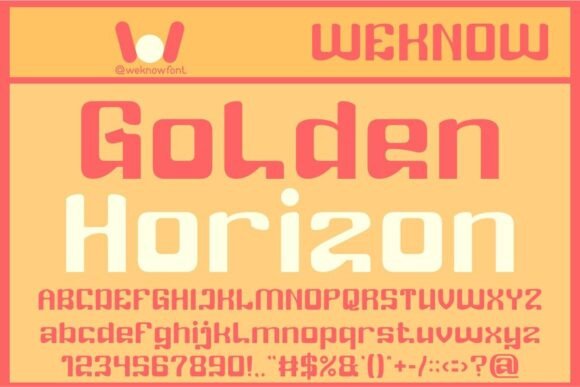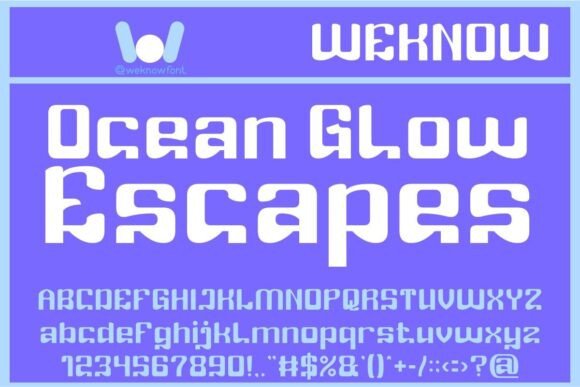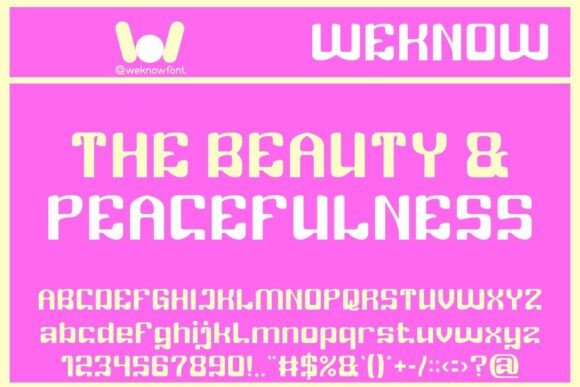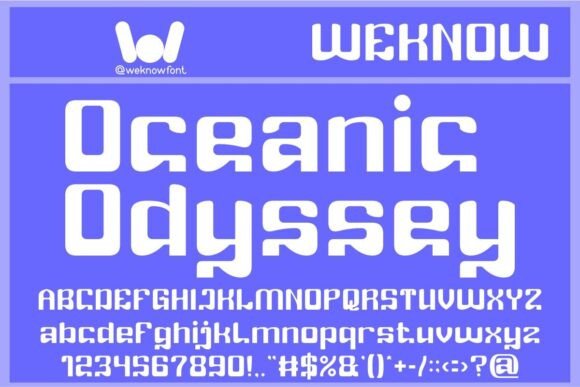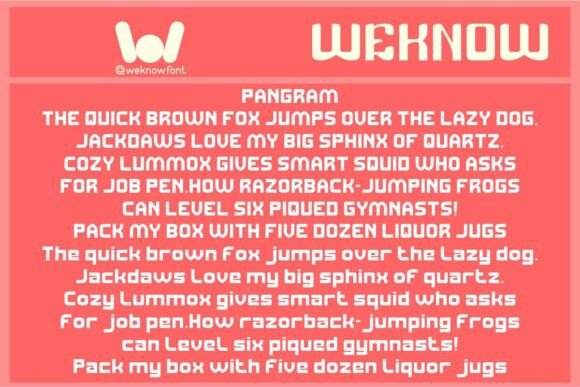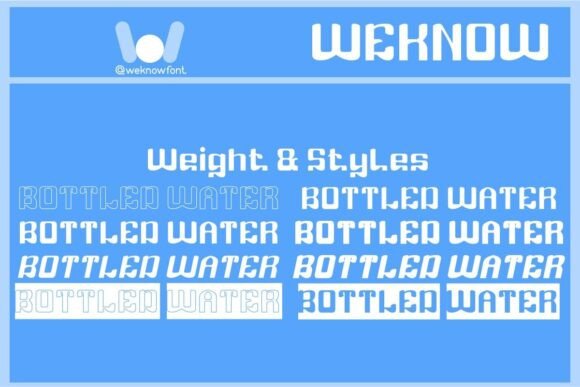
Unlock the Whimsy of Your Designs with Bottled Water Font
Have you ever stared at a blank page, waiting for the perfect font to inspire your next creative project? That’s exactly what happened to me when I stumbled upon the enchanting ‘Bottled Water Font’. Its wavy lines and quirky charm sparked a wave of ideas, and I knew I had to dive deeper.
Imagining a font that captures the essence of fun and playfulness, ‘Bottled Water Font’ is a visually stunning display font that seamlessly blends whimsy, surrealism, and eclecticism. This font is a designer’s dream come true, offering a unique twist to logos, corporate identities, and brand signatures. Whether you’re a seasoned pro or a design newbie, Bottled Water Font is an invaluable asset that will breathe life into your projects.
Bottled Water Font Key Features
- Unique Characteristics: The Bottled Water Font features a modern, minimalist design with clean lines and a subtle texture, evoking the feeling of a refreshing glass of water.
- Font Style: The Bottled Water Font is available in 3 font styles: Regular, Bold, and Italic, providing versatility for various design applications.
Bottled Water Font Review
I was excited to dive into the world of Bottled Water Font, a sans-serif typeface designed specifically for showcasing water-related products. Here’s my honest take on this font.
- Legibility: Bottled Water Font is indeed highly legible, even at smaller font sizes. The clear, rounded lines make it perfect for reading long text.
- Water-inspired Design: The font’s design, with its wavy lines and subtle texture, effectively conveys the idea of water. It’s a clever touch that adds to the font’s appeal.
- Wide Character Set: The font includes a comprehensive set of characters, including symbols, numbers, and punctuation.
- Flexibility: While Bottled Water Font is excellent for water-related products, it may not be as versatile for other industries. Its unique design might limit its use in more general contexts.
- Weight Variety: The font lacks a wide range of weights, which might make it less suitable for creating visual hierarchies or emphasizing specific text.
- Customization: While the font is well-designed, it’s not highly customizable. Users may find it challenging to adjust the font’s appearance to suit their specific needs.
Bottled Water Font is a well-designed, legible font that excels in its intended niche. While it may have some limitations, its unique design and clear lines make it an excellent choice for water-related products. However, its versatility and customization options are somewhat restricted.